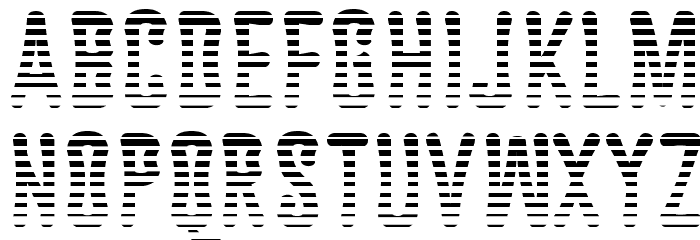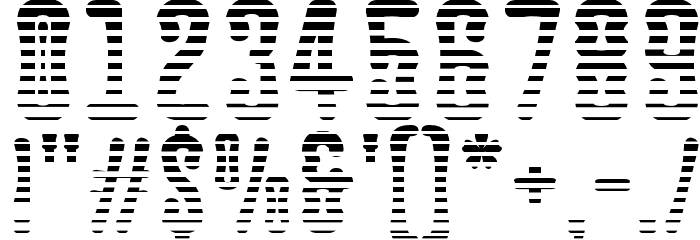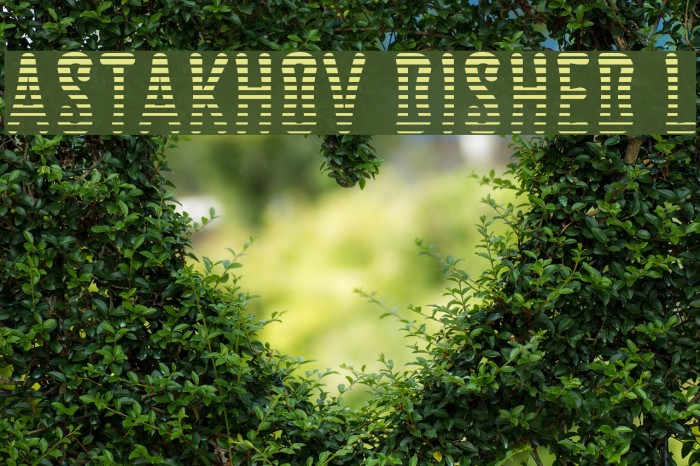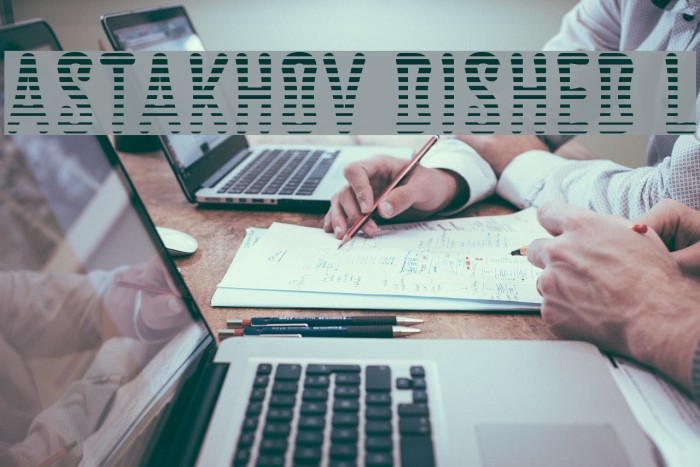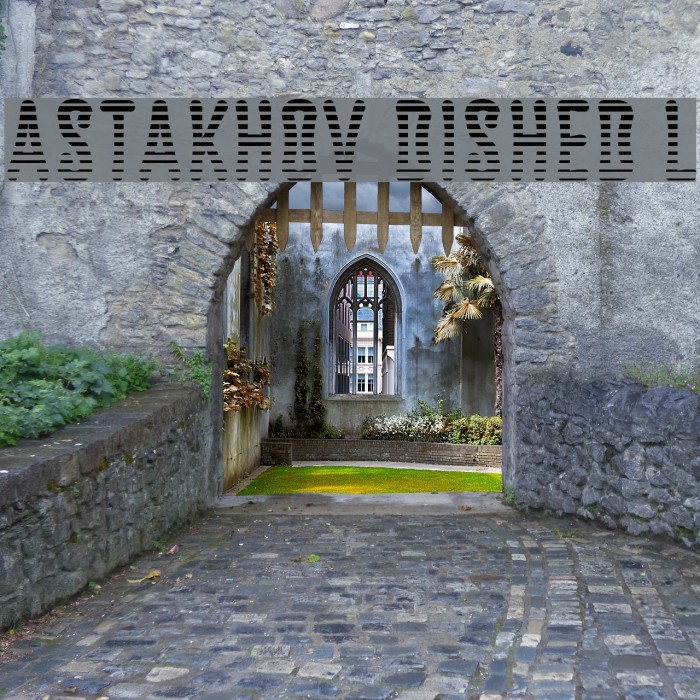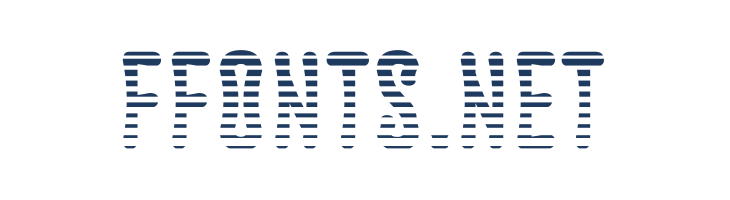
Astakhov Dished L Font
This font features a unique, modern design with a striped pattern running horizontally across each character. The letters are bold and uppercase, with a geometric structure that gives them a futuristic and industrial feel. The lowercase letters and numbers maintain the same striped aesthetic, ensuring consistency throughout the typeface. Special characters are also included, each designed with the same distinctive style. The font's high contrast and decorative elements make it stand out, ideal for eye-catching designs.
A bold, striped font with a modern, industrial look.
- Proposed Projects: Perfect for branding, posters, and any design projects that require a bold, modern aesthetic.